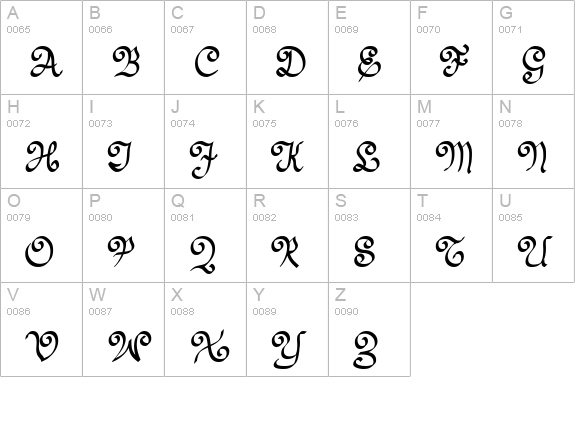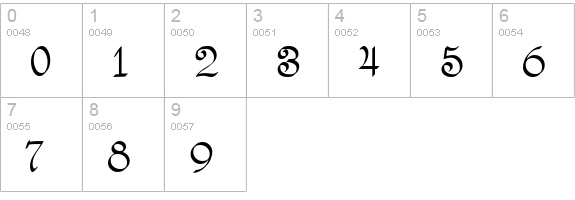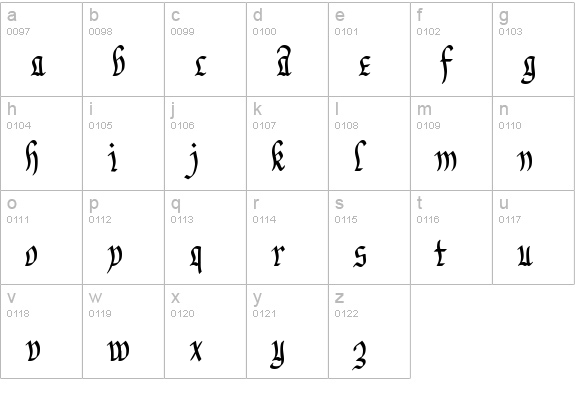
LastBigFling Bold Font Details
LastBigFling Bold is a strong, high-contrast variant in the LastBigFling typeface family \xE2\x80\x94 well suited to headlines, attention-grabbing titles, and strong calls-to-action.
LastBigFling Bold is a captivating and eye-catching font that demands attention with its bold and daring design. The strong and confident letterforms are perfect for making a statement or adding emphasis to any project. Whether you're designing a poster, creating a logo, or crafting a headline, LastBigFling Bold will make your text stand out from the crowd. This font exudes a sense of energy and excitement, with its thick strokes and sharp angles. It brings a modern and contemporary feel to any design, while still maintaining a timeless appeal. The bold weight adds a sense of strength and power, making LastBigFling Bold the perfect choice for any project that requires a touch of boldness. What makes LastBigFling Bold even more appealing is that it is freely available to download at FontsMarket.com. Yes, you read that right – you can get this amazing font for free! FontsMarket.com is the go-to platform for font enthusiasts, offering a vast collection of high-quality fonts for both personal and commercial use. So, why wait? Download LastBigFling Bold today and elevate your design to new heights.